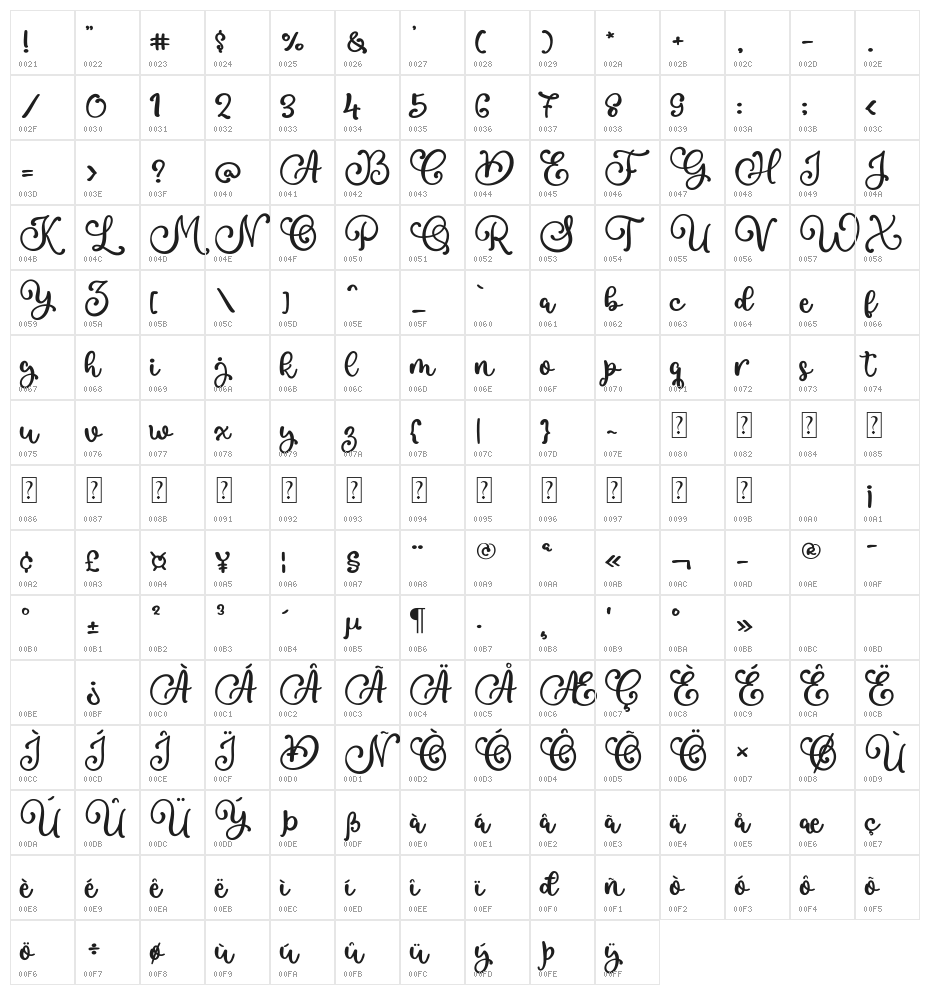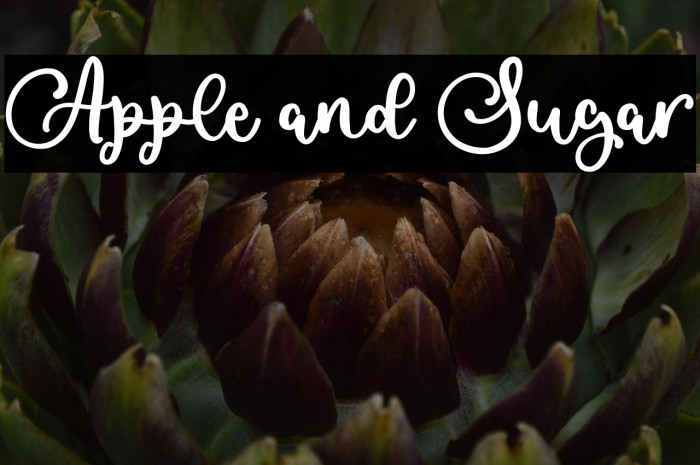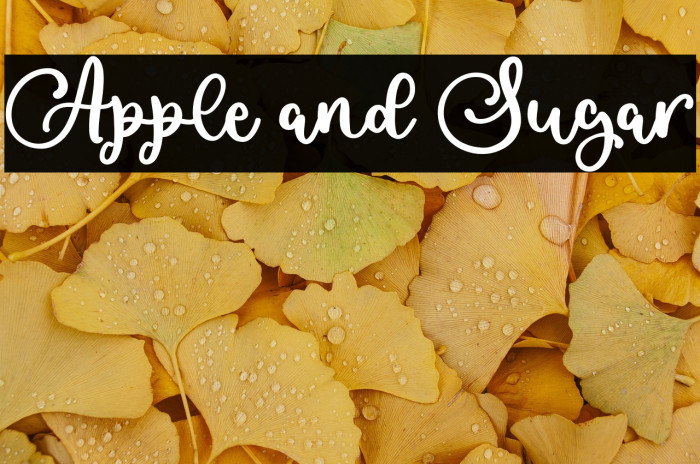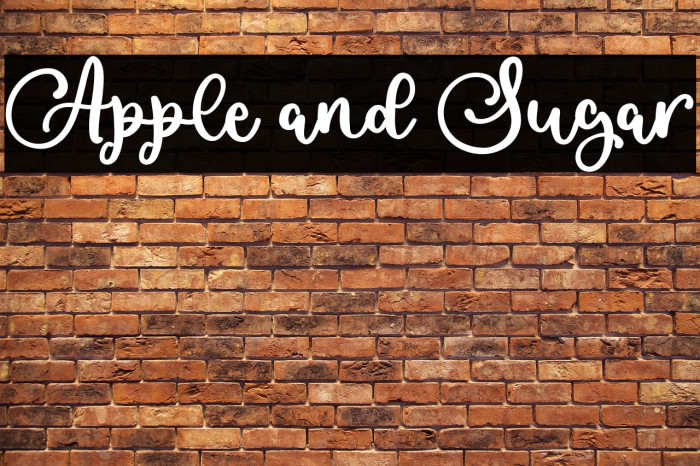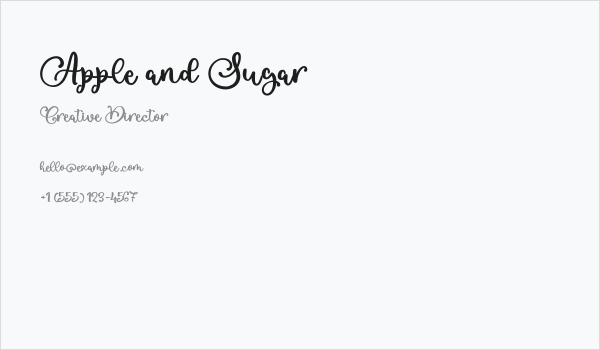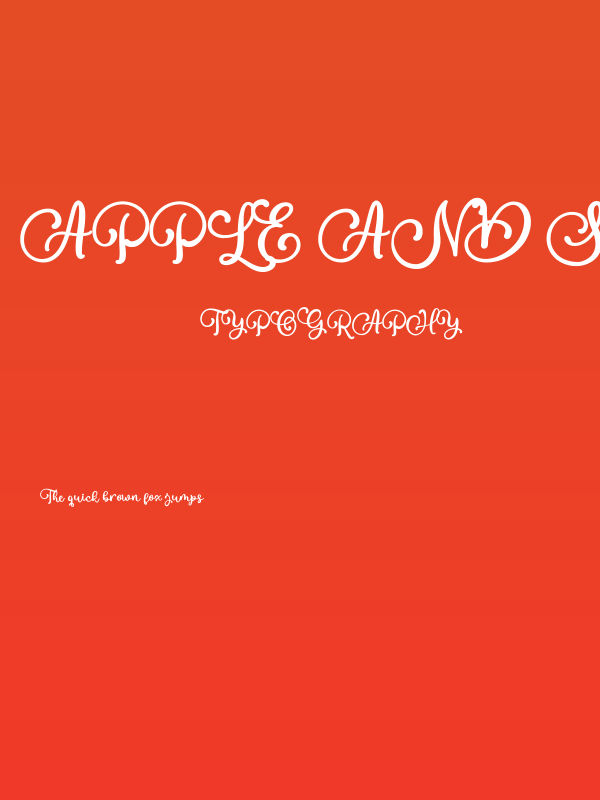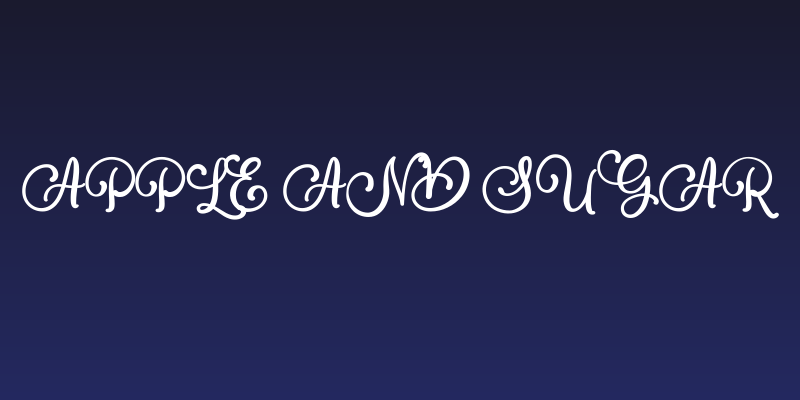
Apple and Sugar Font
Apple and Sugar Description
This font features a playful and whimsical script style, characterized by its flowing, interconnected letters. The uppercase letters are ornate, with loops and curls that add a sense of elegance and charm. The lowercase letters maintain a consistent style, with rounded forms and smooth transitions between strokes. The numerals are equally playful, with a slight tilt and rounded edges that complement the overall design. Special characters are crafted with the same attention to detail, ensuring a cohesive look across all glyphs. This font exudes a sense of fun and creativity, making it ideal for projects that require a touch of personality and flair.
Use CaseLogos, Invitations, Greeting Cards
Proposed ProjectsIdeal for greeting cards, invitations, branding, and playful design projects.